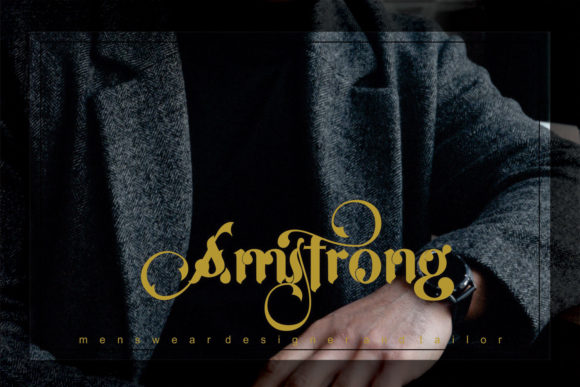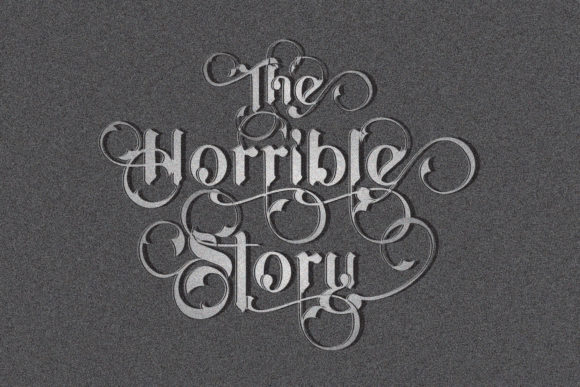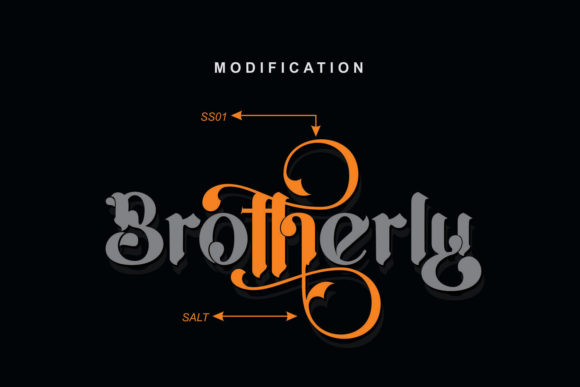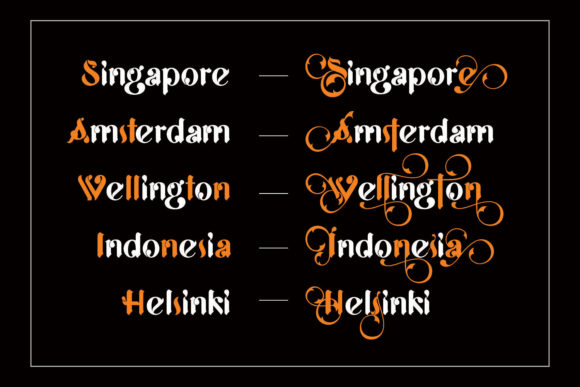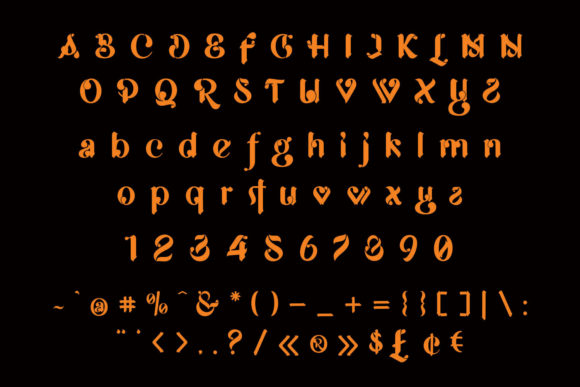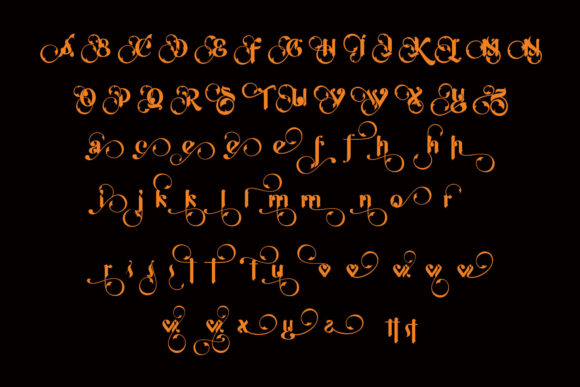
Introducing Brotherly Font: Elevate Your Designs with Vintage Elegance
Are you on the hunt for a font that exudes sophistication and classic charm? Look no further than Brotherly Font, a stunning serif font that is sure to breathe new life into your designs. With its vintage flair and elegant lines, Brotherly is the perfect addition to any project, from crafting and scrapbooking to graphic design and digital art.
What Makes Brotherly Font So Special?
Brotherly Font is a beautifully crafted serif font that boasts a unique, chunky lettered style that is sure to make your designs stand out. Its vintage inspiration is evident in its classic lines and elegant swashes, which add a touch of sophistication to any project. But what really sets Brotherly apart is its PUA (Private Use Area) encoding, which allows you to access all of the glyphs and swashes with ease.
The Benefits of PUA Encoding
For designers and crafters, PUA encoding is a game-changer. It means that you can access a wide range of glyphs and swashes, allowing you to add intricate details and flourishes to your designs. With Brotherly Font, you can easily access alternative letters, ligatures, and swashes, giving you the flexibility to create unique and eye-catching designs.
Uses for Brotherly Font
Brotherly Font is incredibly versatile, making it perfect for a wide range of design applications. Here are just a few ideas to get you started:
- Scrapbooking: Add a touch of vintage elegance to your scrapbook pages with Brotherly Font. Use it to title your pages, add journaling, or create beautiful headings.
- Graphic Design: Brotherly Font is perfect for graphic design projects, from logos and branding to brochures and flyers. Its classic lines and elegant swashes make it a great choice for any design that needs a touch of sophistication.
- Digital Art: Add a touch of whimsy to your digital art with Brotherly Font. Use it to create beautiful text overlays, add captions to your artwork, or create stunning typographic designs.
- Crafting: Brotherly Font is a great choice for crafters, from knitters and crocheters to papercrafters and card makers. Use it to create beautiful labels, add text to your projects, or create stunning handmade cards.
Why Choose Brotherly Font?
With so many fonts on the market, why choose Brotherly Font? Here are just a few reasons why Brotherly stands out from the crowd:
- Unique Style: Brotherly Font has a unique, chunky lettered style that is sure to make your designs stand out.
- Vintage Inspiration: Brotherly Font is inspired by classic serif fonts, giving it a timeless elegance that will never go out of style.
- PUA Encoding: Brotherly Font is PUA encoded, making it easy to access all of the glyphs and swashes.
- Elegant Swashes: Brotherly Font includes a range of elegant swashes, perfect for adding a touch of sophistication to your designs.